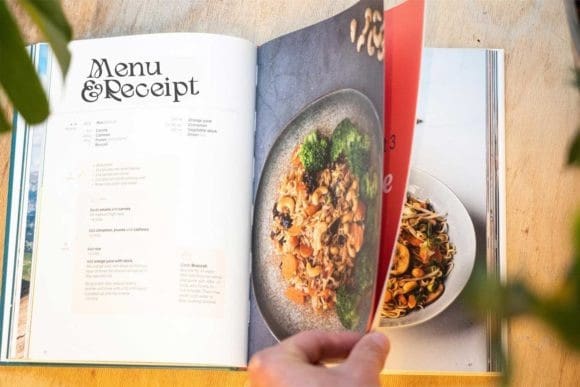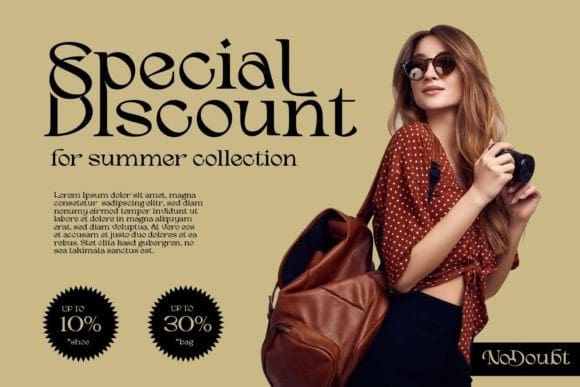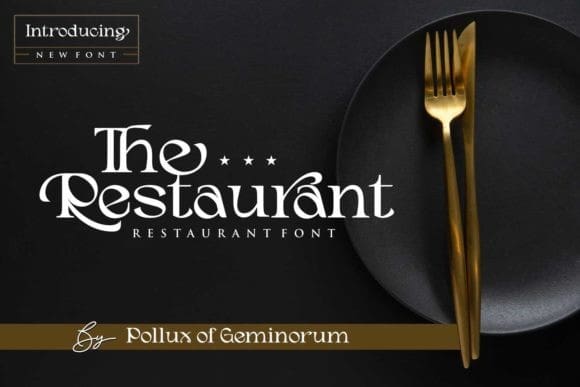
The Restaurant Font
The Restaurant Font is a modern and stylish serif font. It is suitable for any branding project like logos, t-shirt printing, sport designs, and more. It will look outstanding in a wide range of contexts.